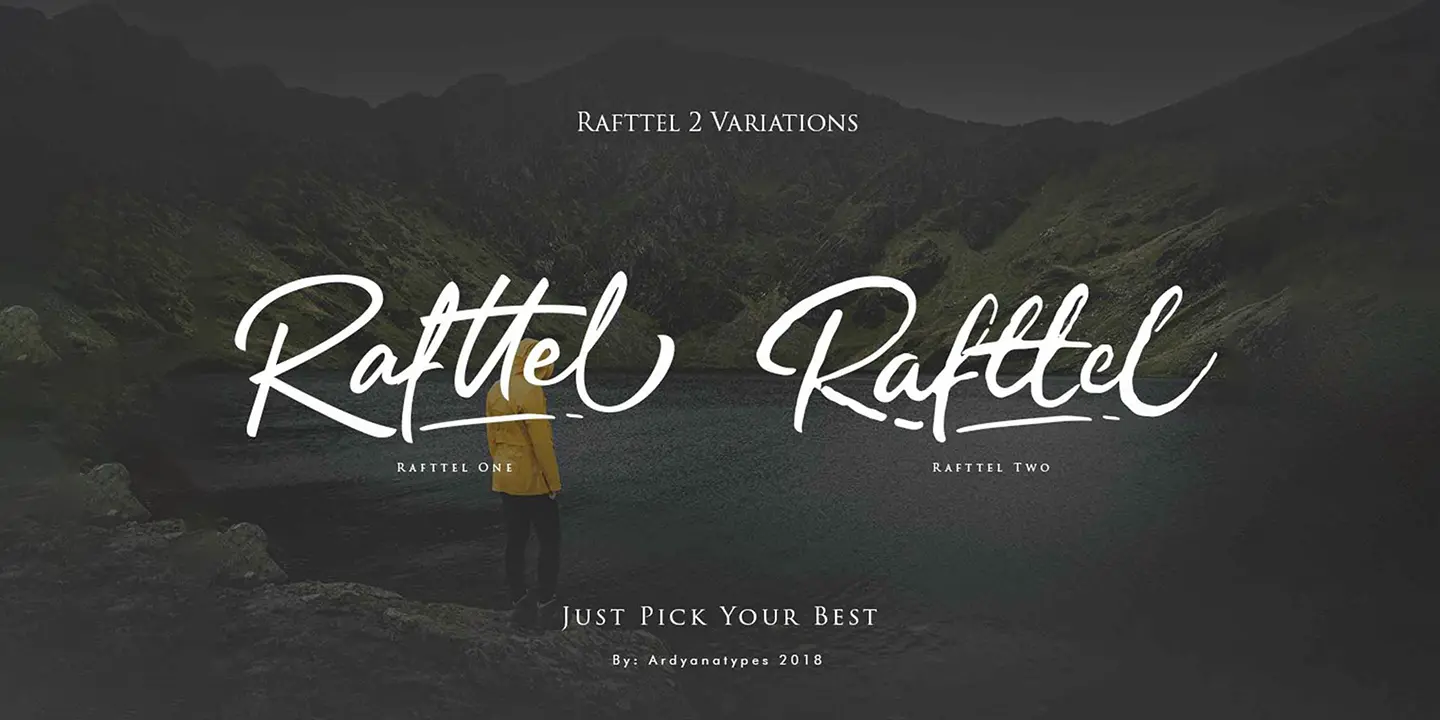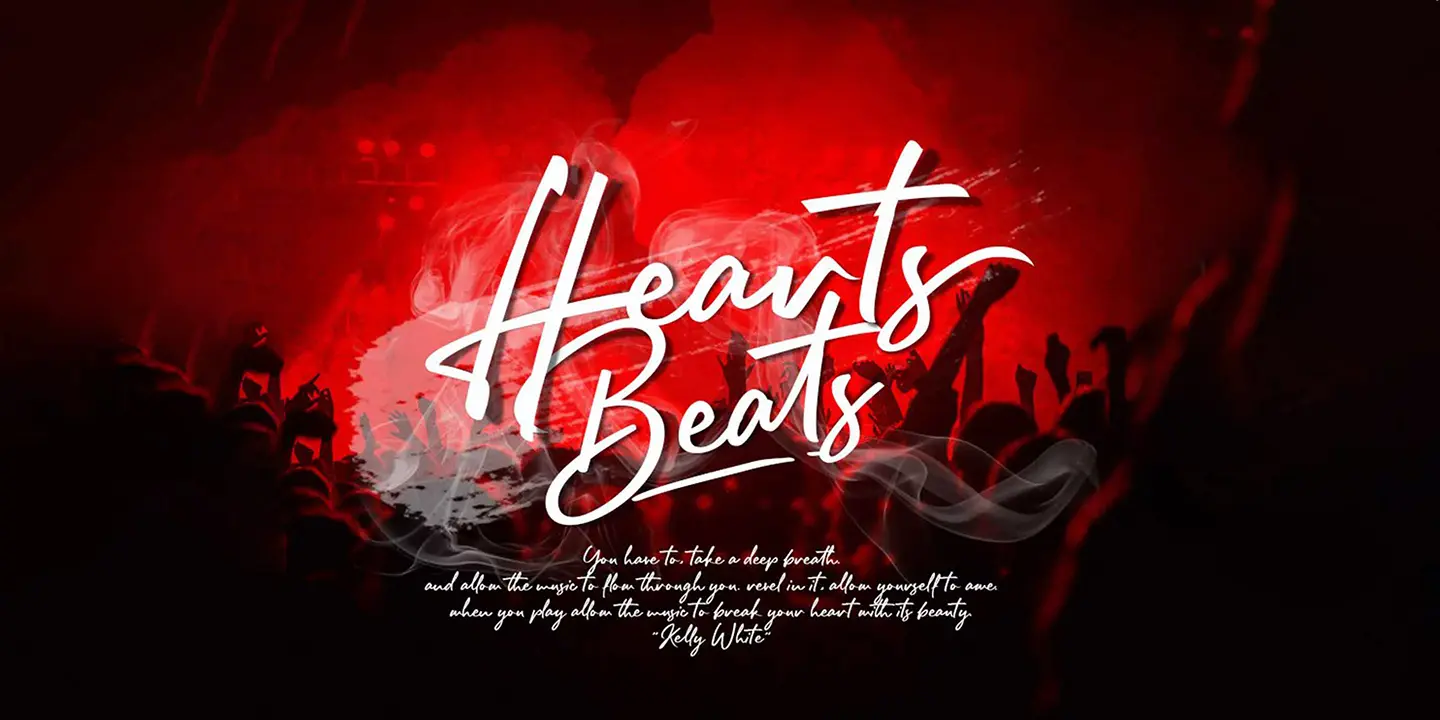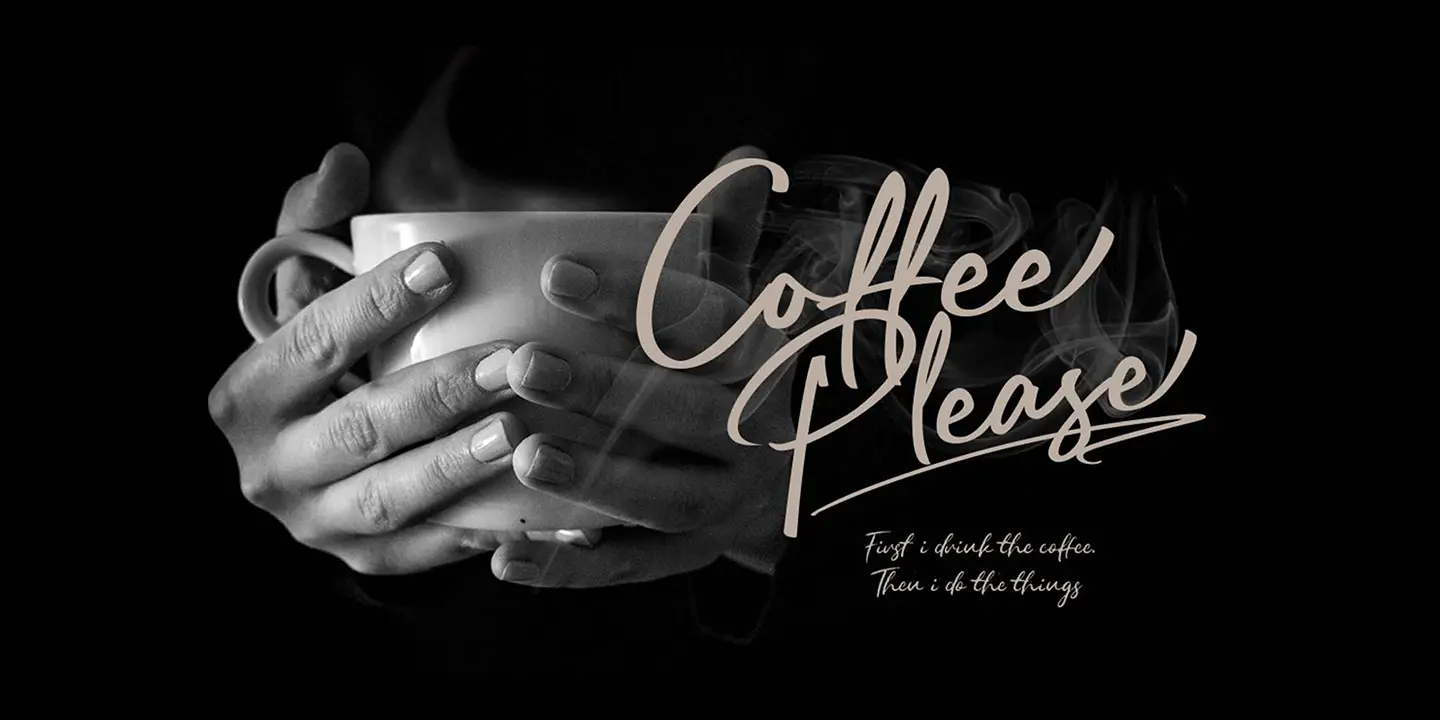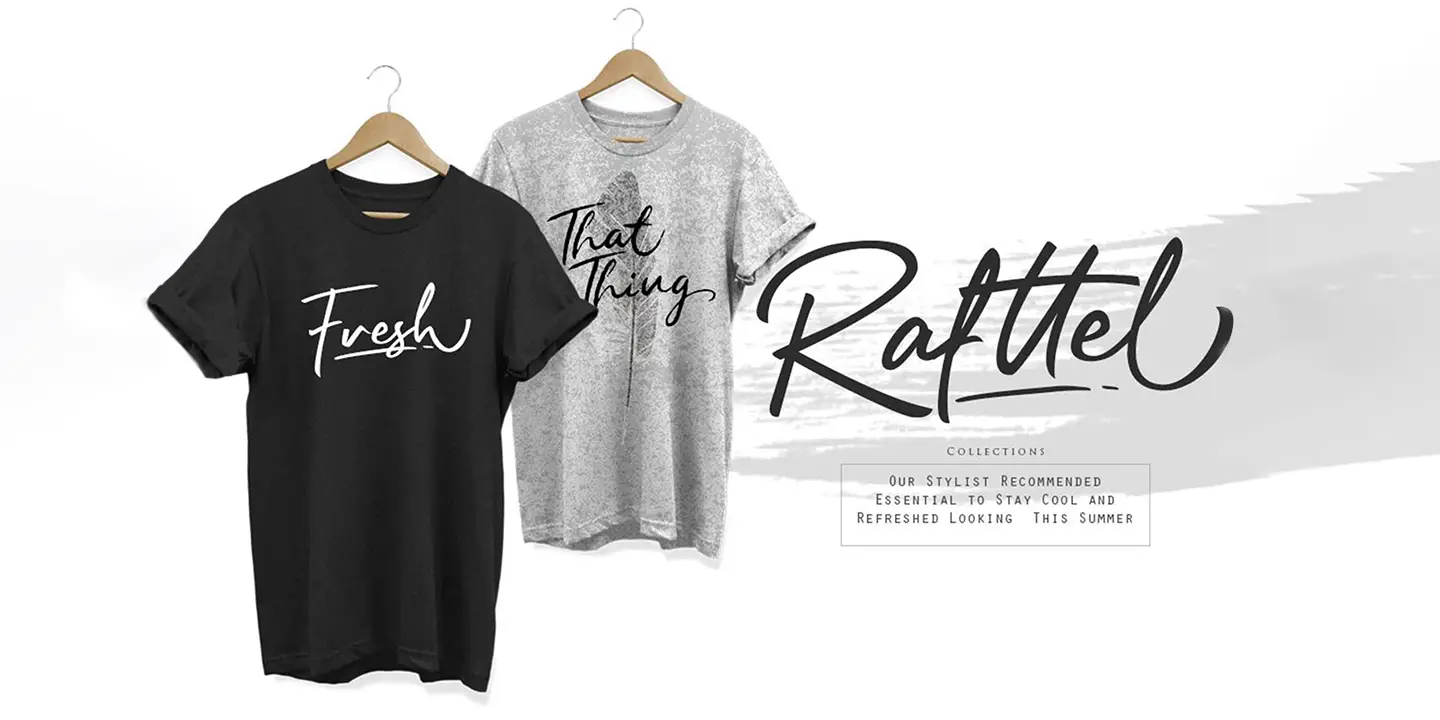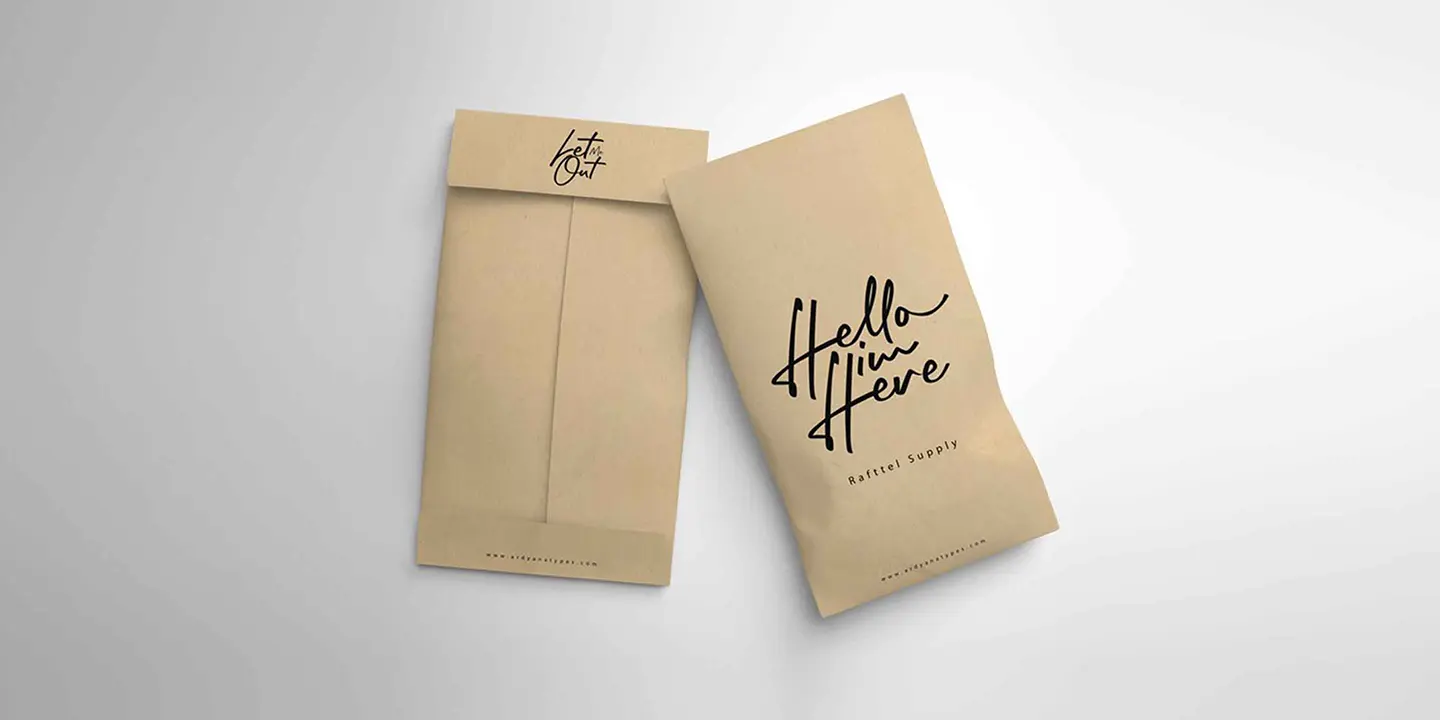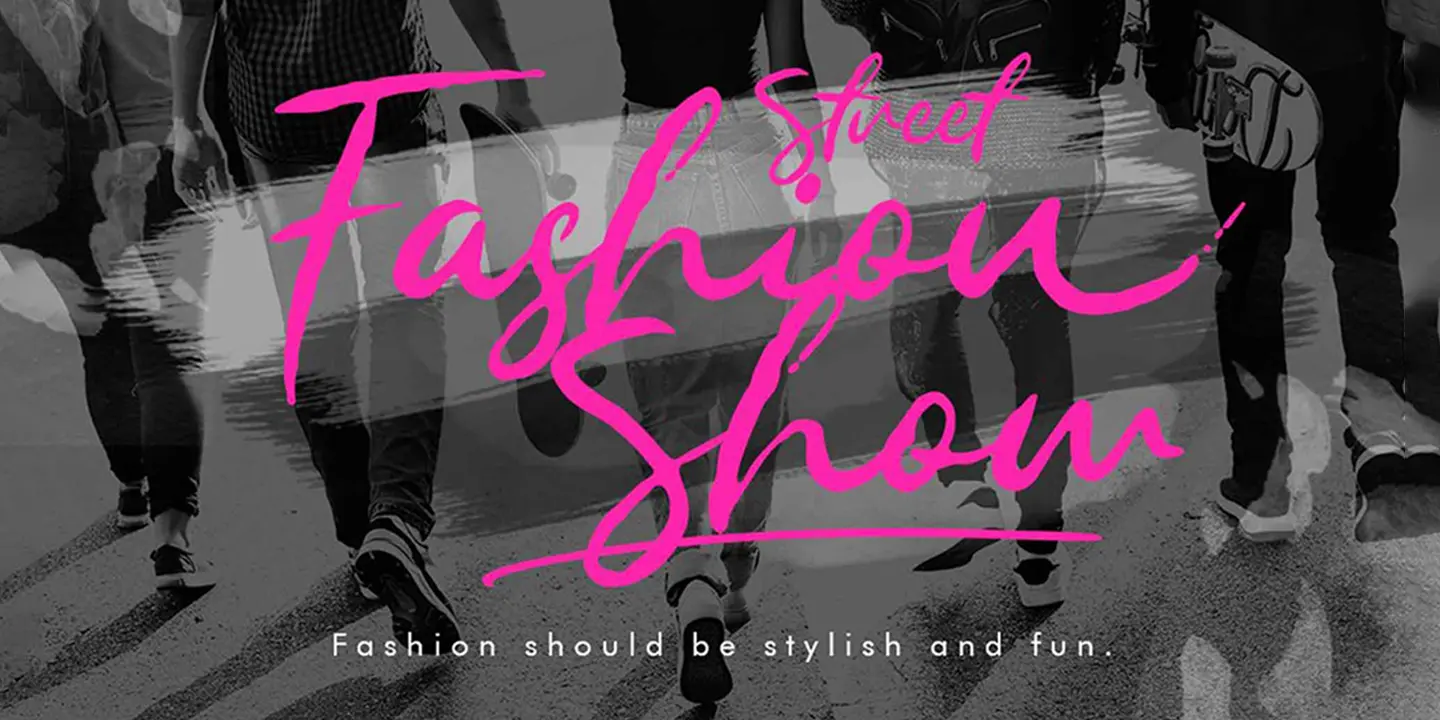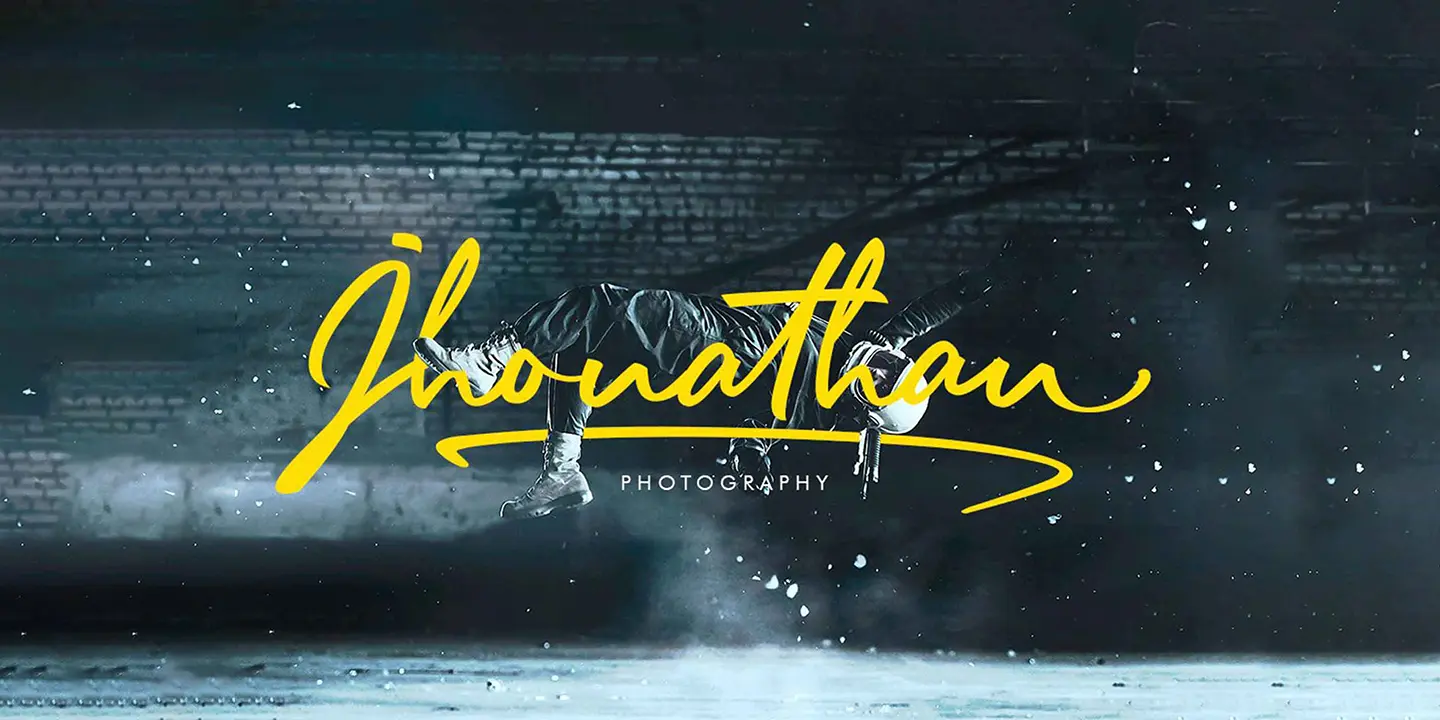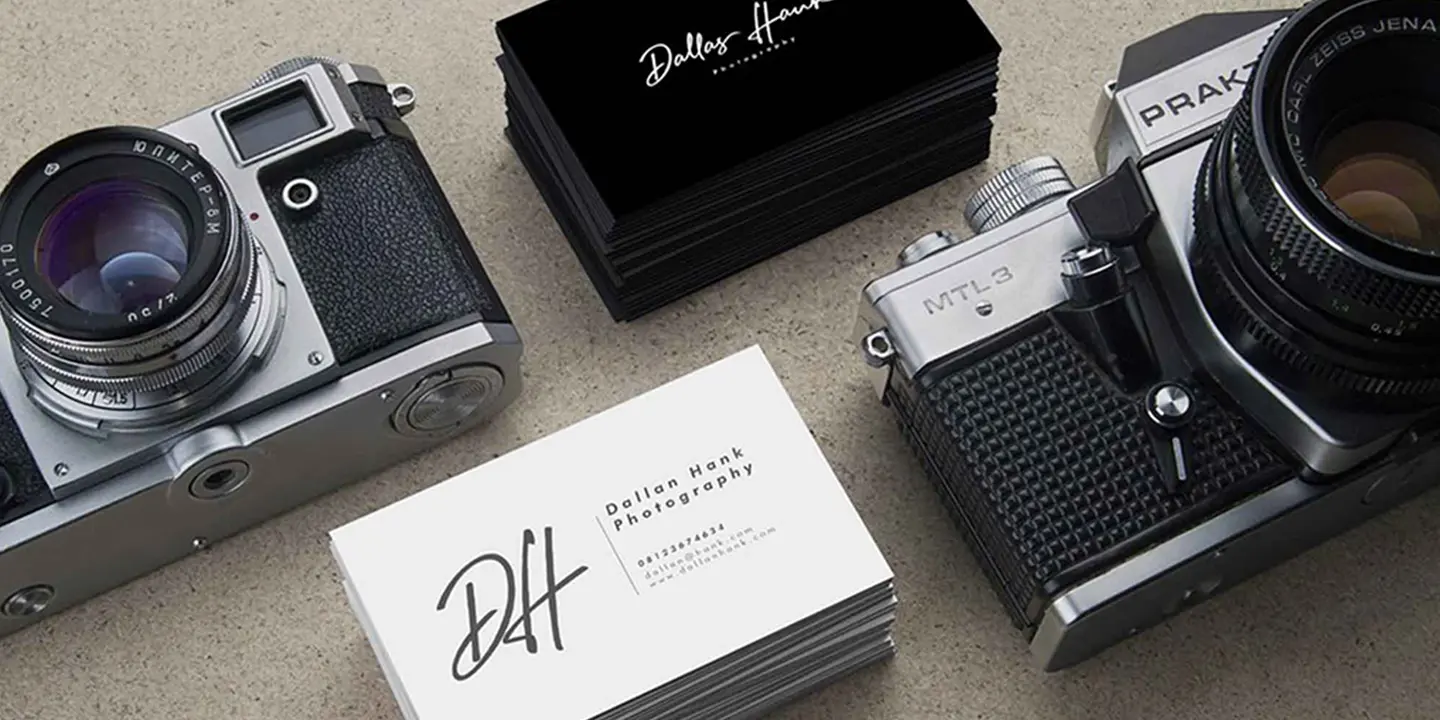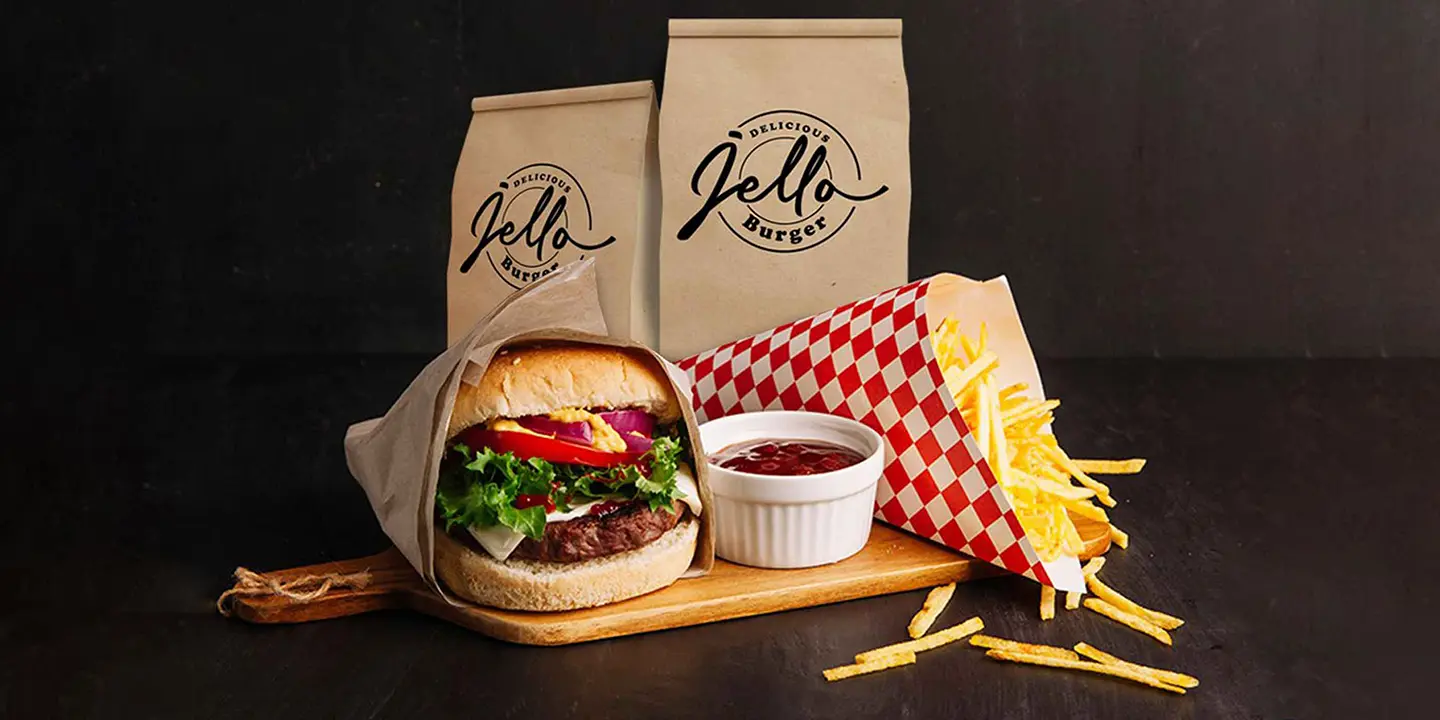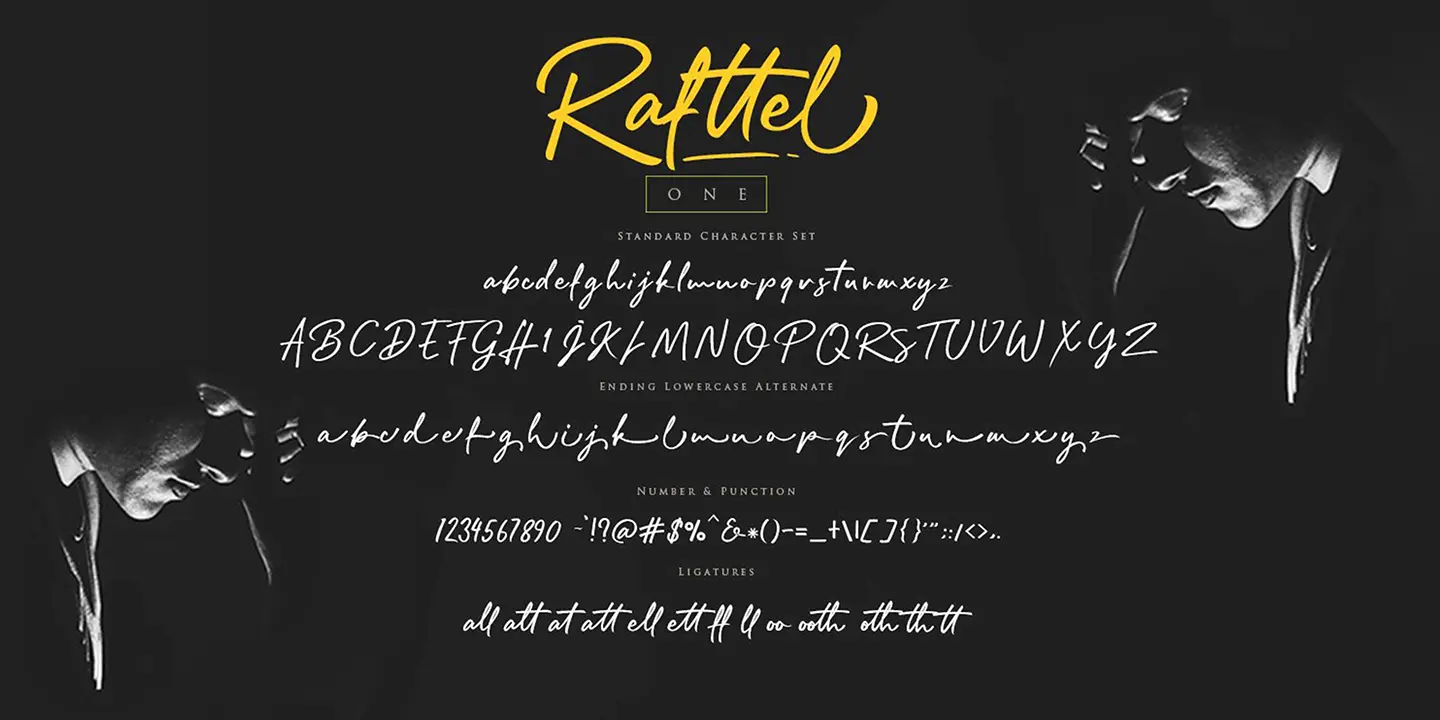
Rafttel
Rafttel font made with simple and elegant handwritting, Rafttel font has 2 variants for you to use, which each variant has a different type for you to use, equipped with alternative opentype features, initial and final forms, ligatures. We keep this font look elegant, classy, easy to read, stylish, memorable, and easy to use. Rafttel font is the perfect choice for watermarks on photography, logo design or signature, quotes, album covers, business cards, and many other design projects. From business cards to photo watermarks, Rafttel font comes to make your designs more classy and elegant.
• all all
• att att
• alt alt
• at at
• ett ett
• ell ell
• ooth ooth
• oth oth
• oo oo
• th th